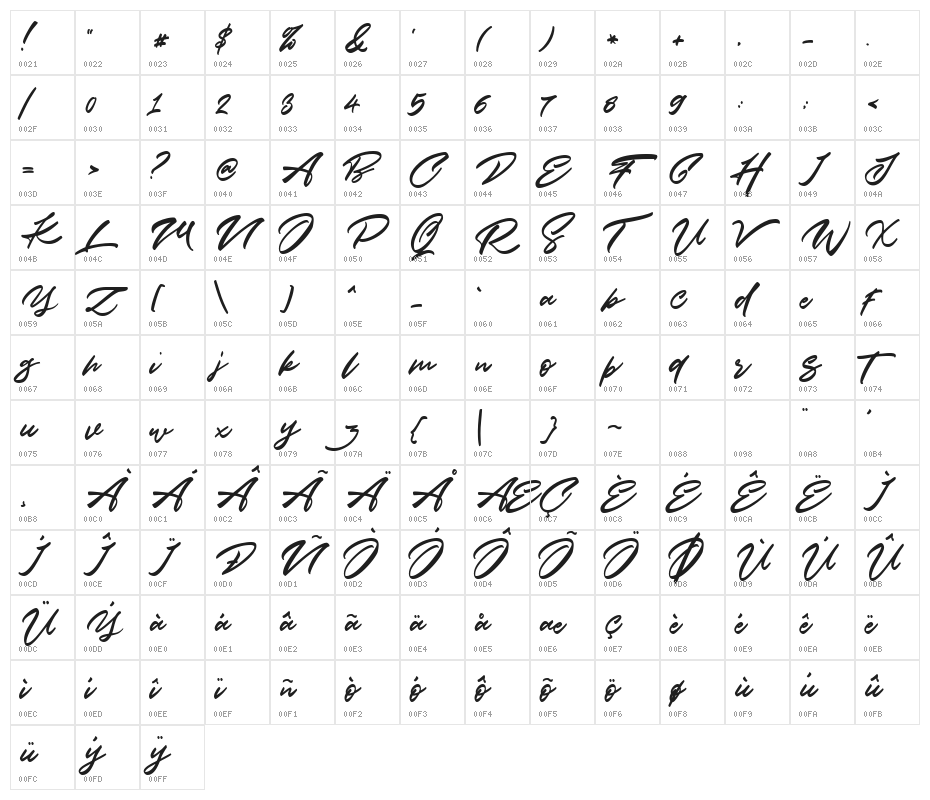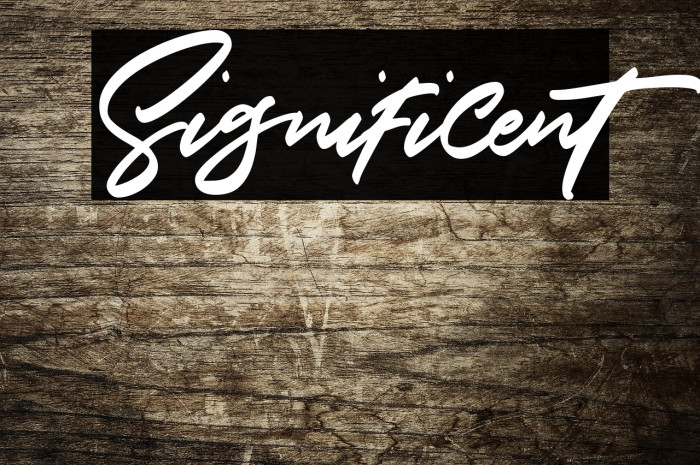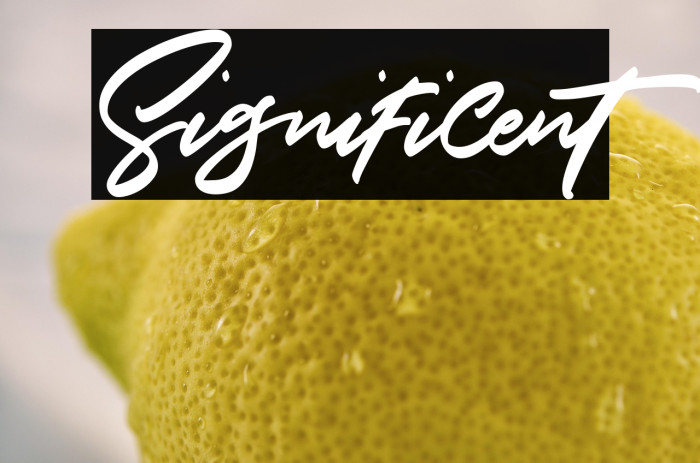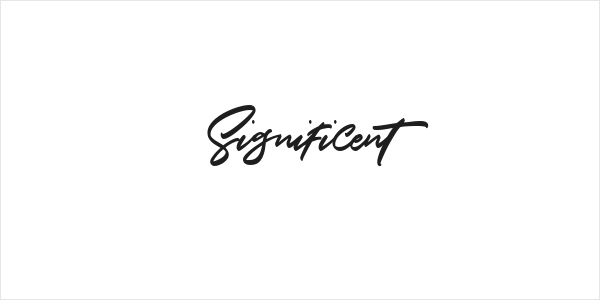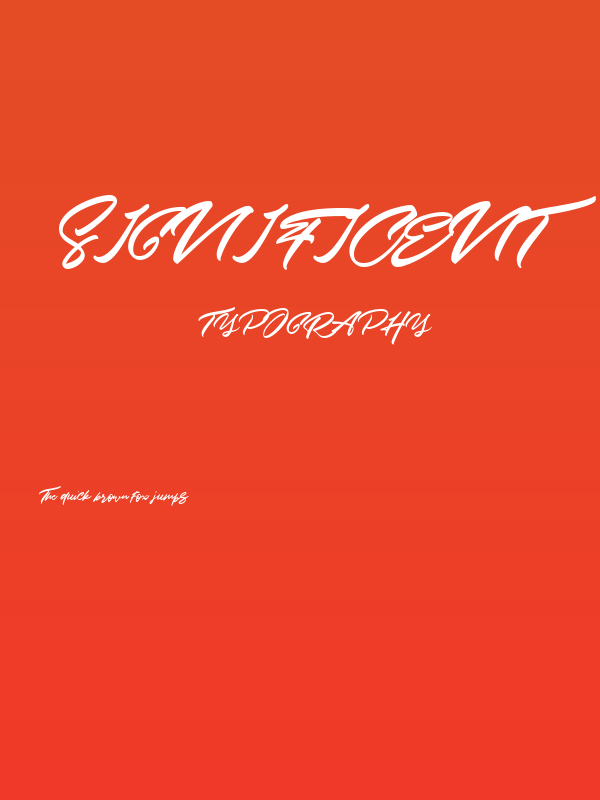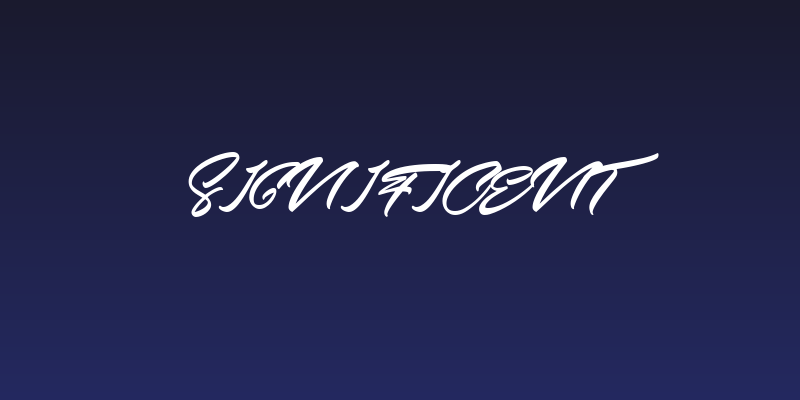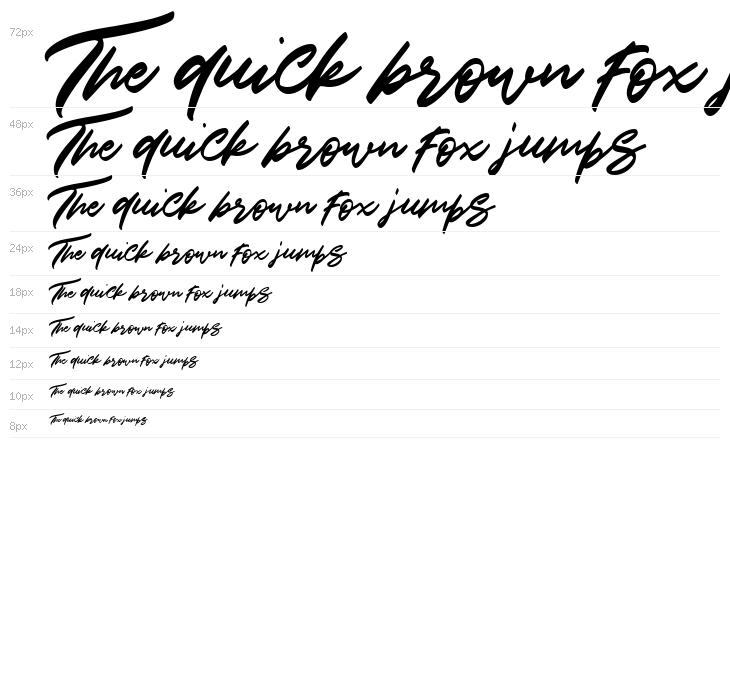
Significent Font
Significent Description
This font features a bold, expressive script style with a dynamic and fluid appearance. The characters are interconnected, giving it a handwritten feel that is both elegant and energetic. The uppercase letters are slightly more elaborate, while the lowercase letters maintain a consistent flow. The numbers and special characters are designed to match the overall aesthetic, ensuring a cohesive look across all text. This font's bold strokes and smooth curves make it ideal for creating impactful designs that require a personal touch.
| Use Case | Logos, Headlines, Invitations |
| Proposed Projects | Ideal for branding, invitations, greeting cards, and social media graphics where a personal, artistic touch is desired. |